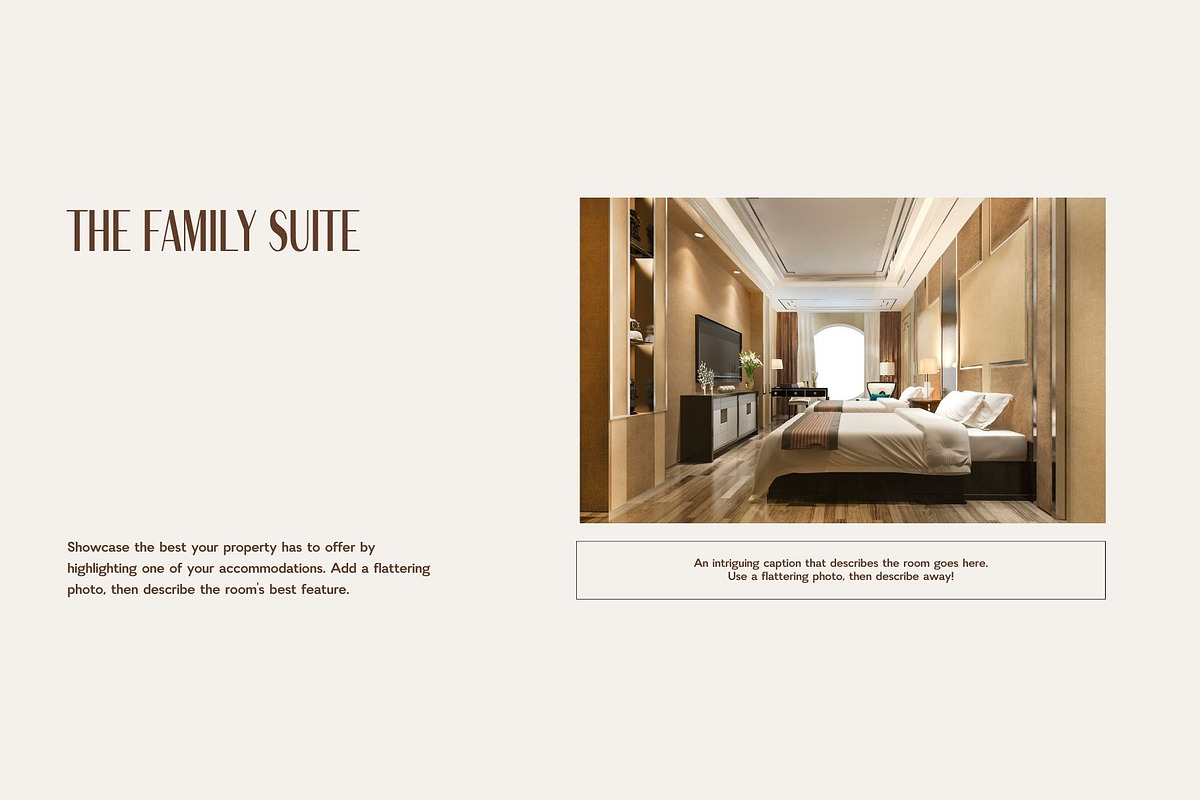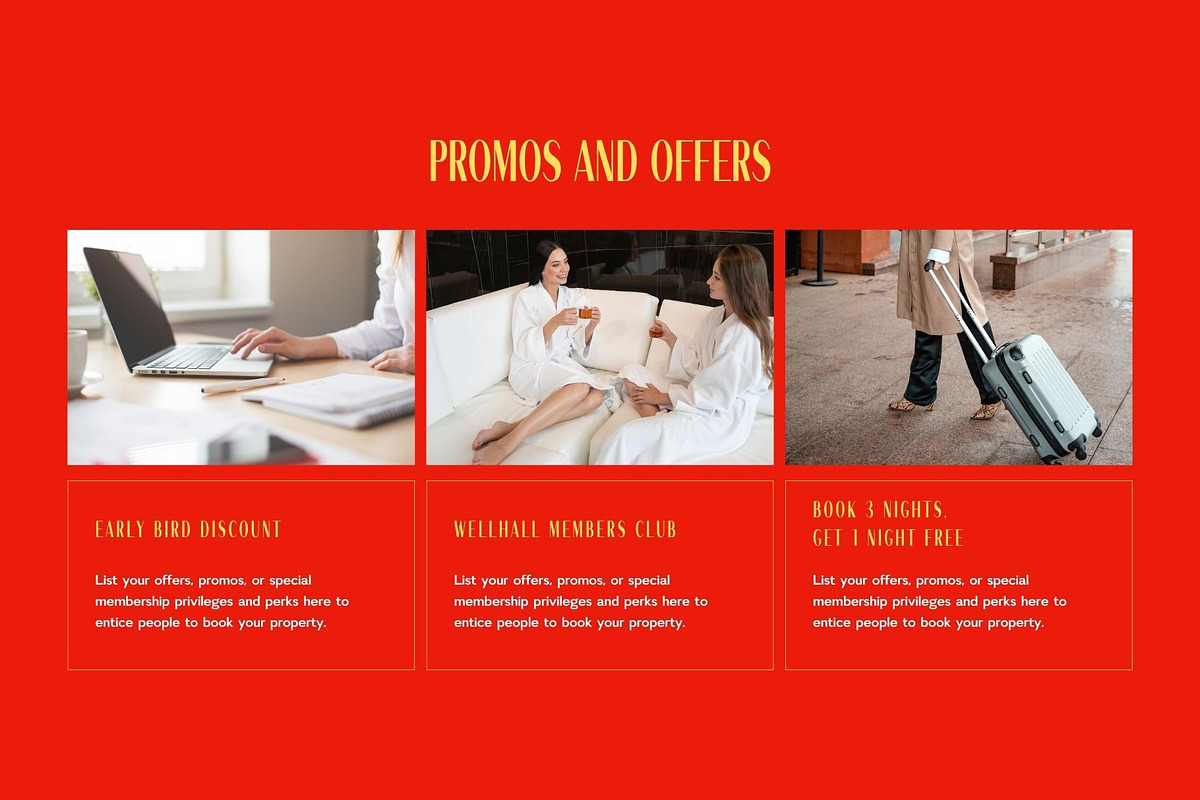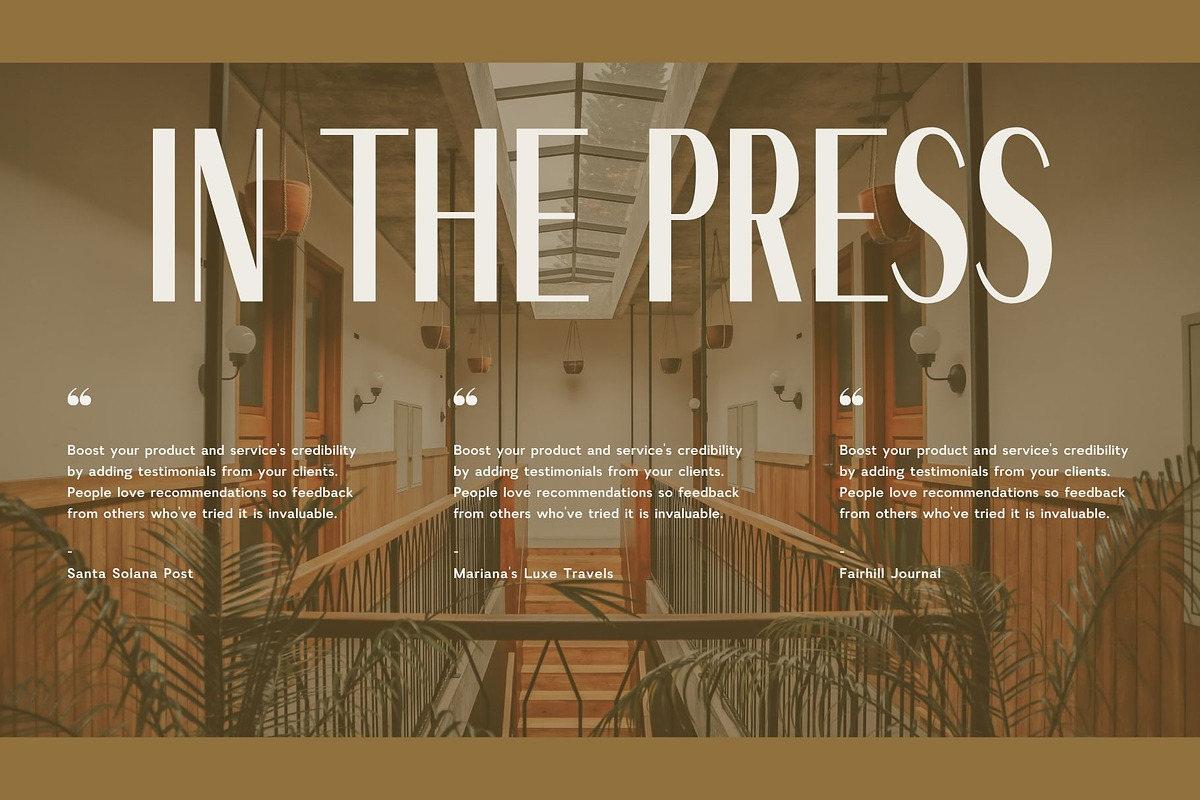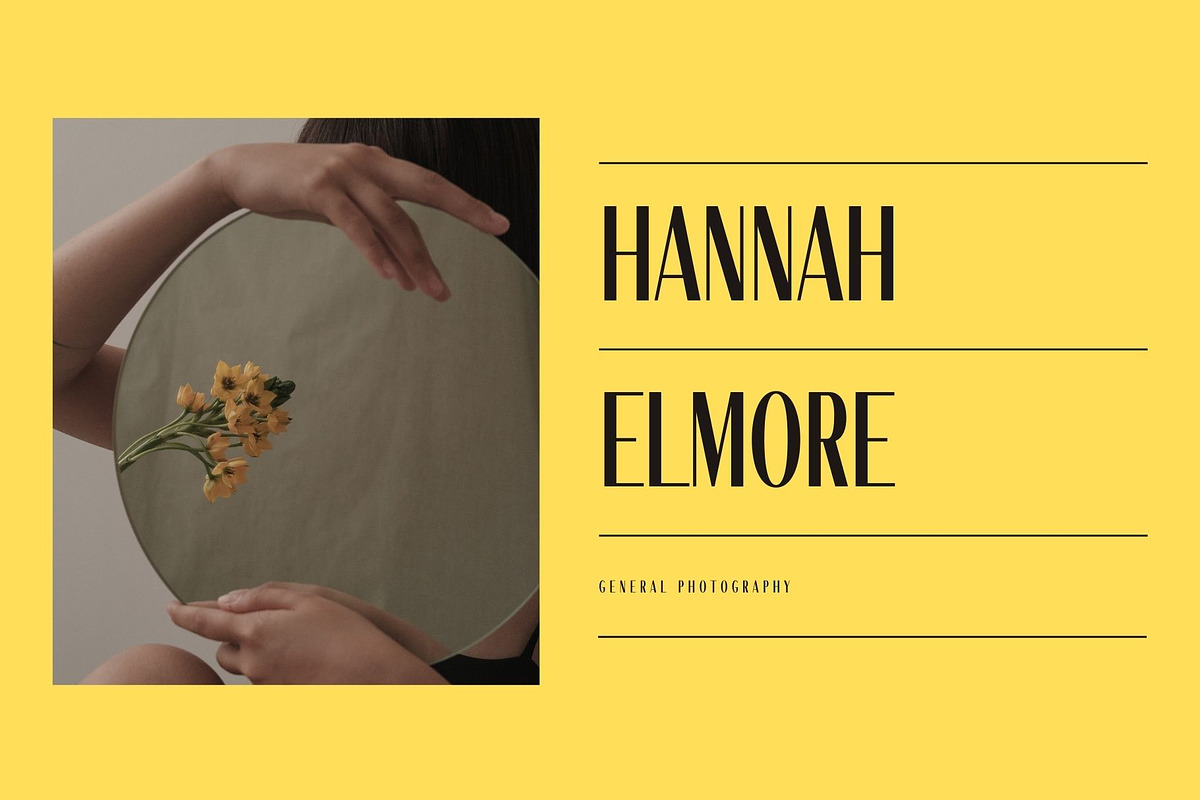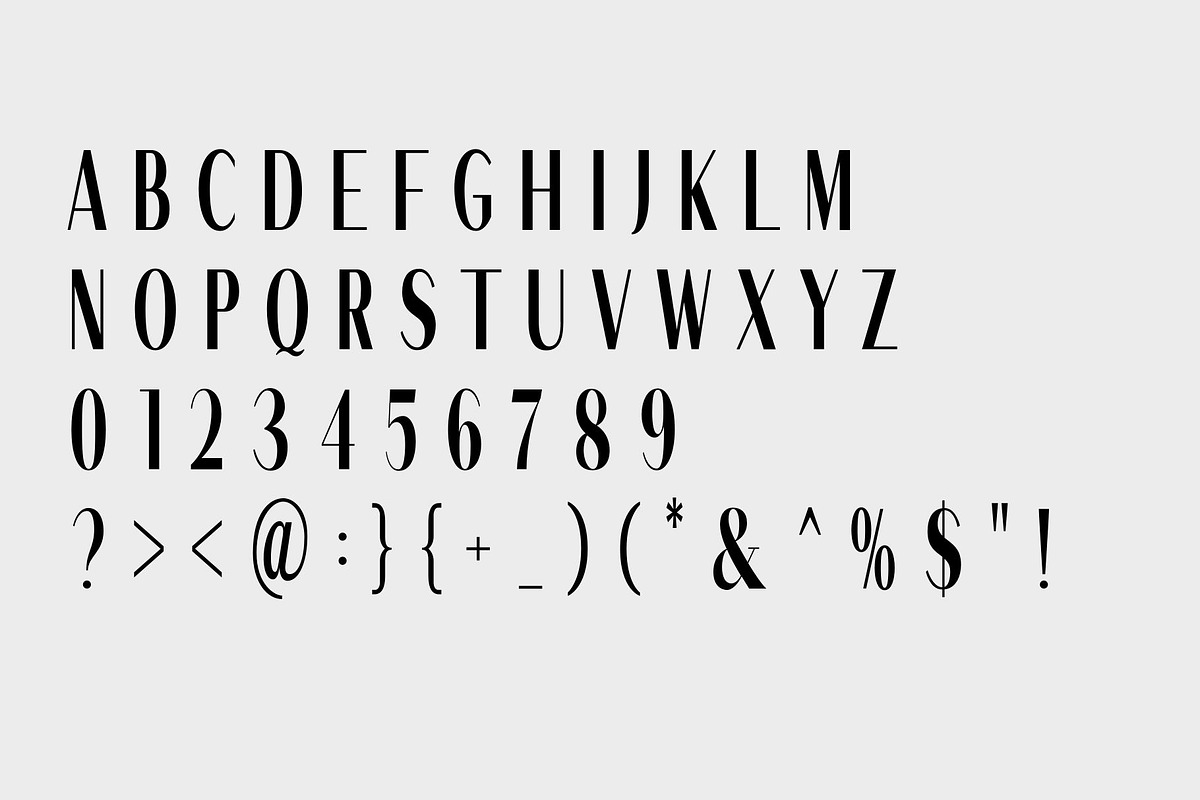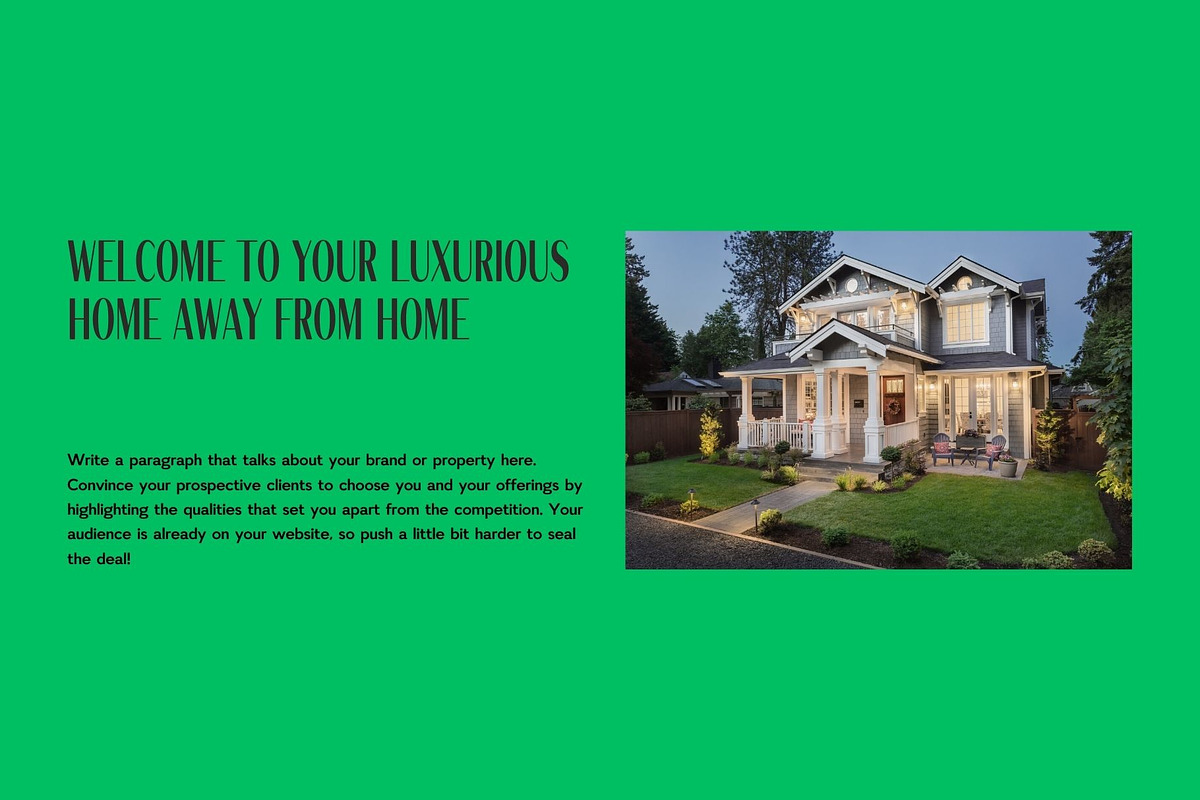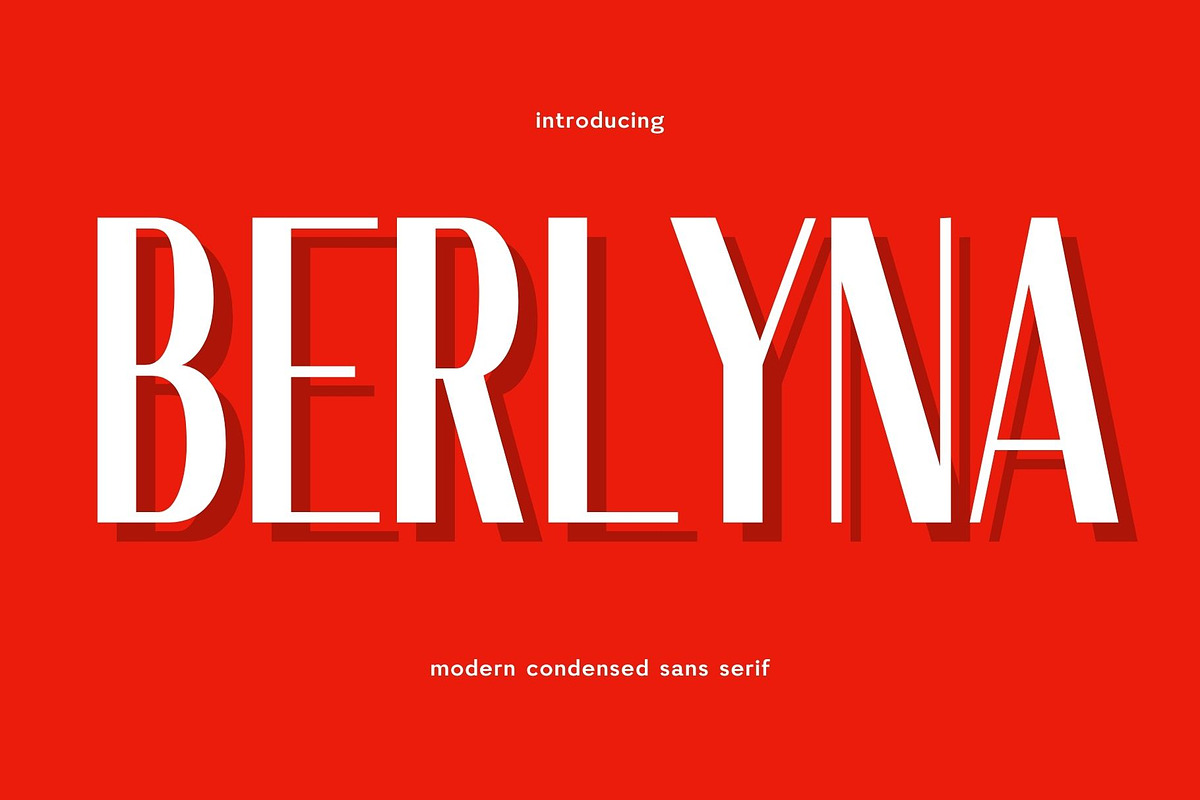
Berlyna-Modern Condensed Sans Serif
Introducing 'Berlyna' Font:
Meet "Berlyna" – a modern condensed sans font that encapsulates sleek simplicity. Boasting clean lines and a space-efficient design, Berlyna delivers a contemporary and sophisticated aesthetic. Tailored for projects where a streamlined, modern look is paramount, this font excels in conveying a sense of clarity and professionalism. Whether you're crafting minimalist logos, sleek headlines, or clean-cut signage, Berlyna introduces a touch of modern elegance to your typography, making it a versatile choice for a wide range of design applications.
Ideal for:
- Modern Designs
- Photography
- Advertising Campaigns
- Social Media Designs
- Ready for Creative Expression
- Immaculately Crafted Letters